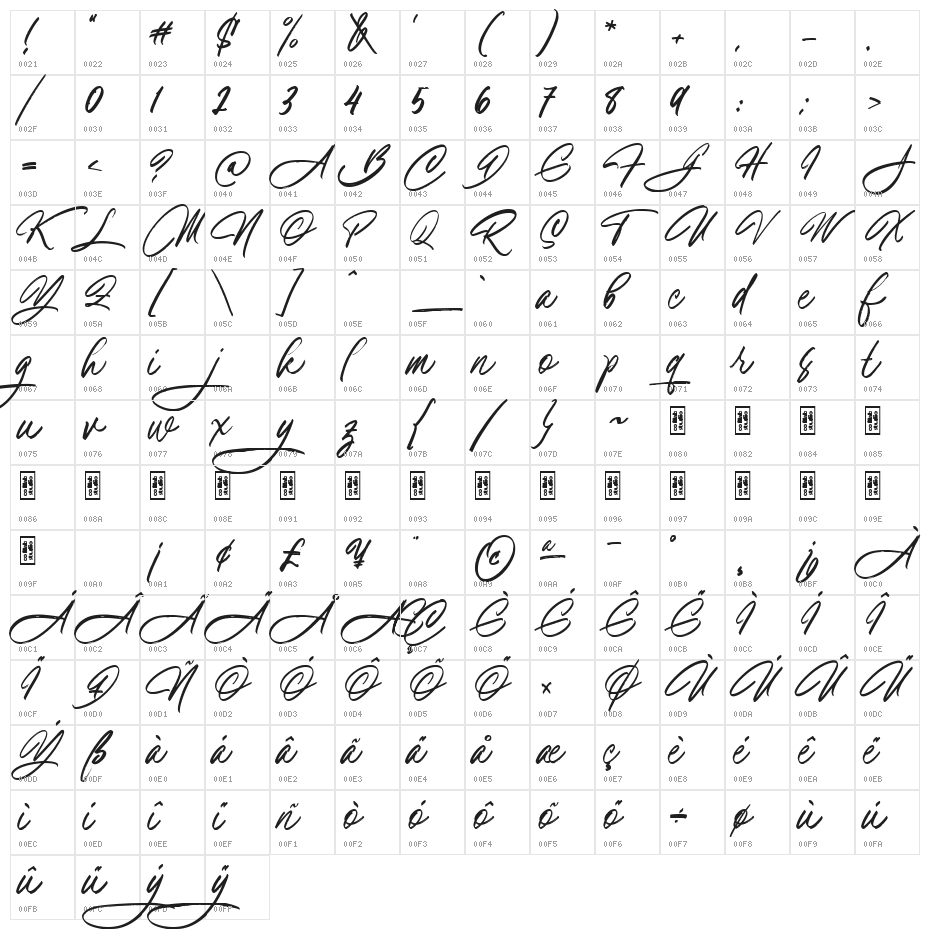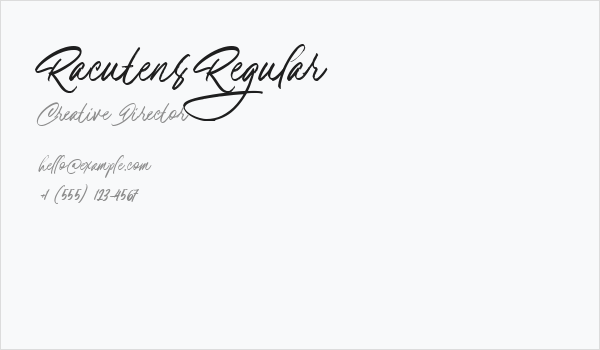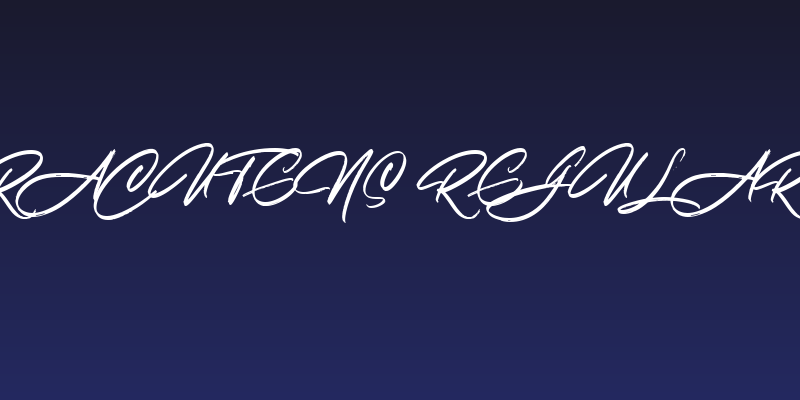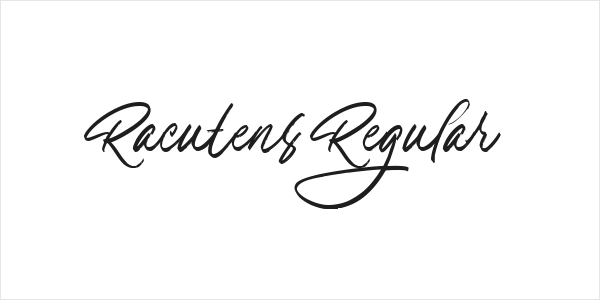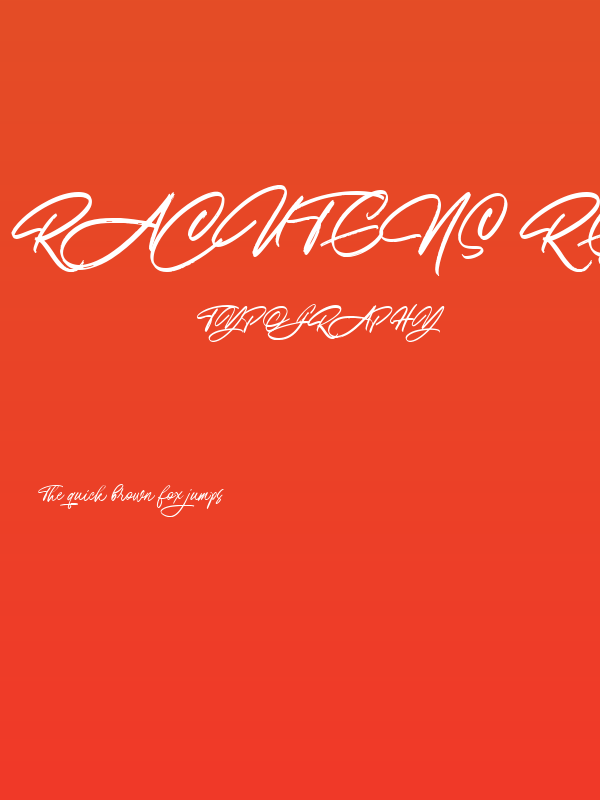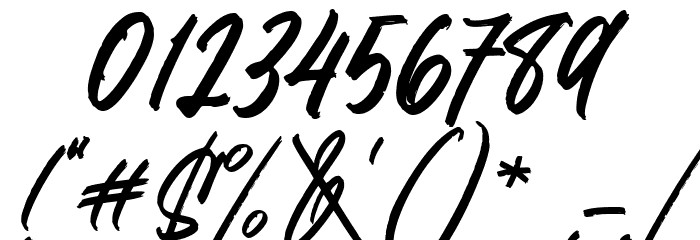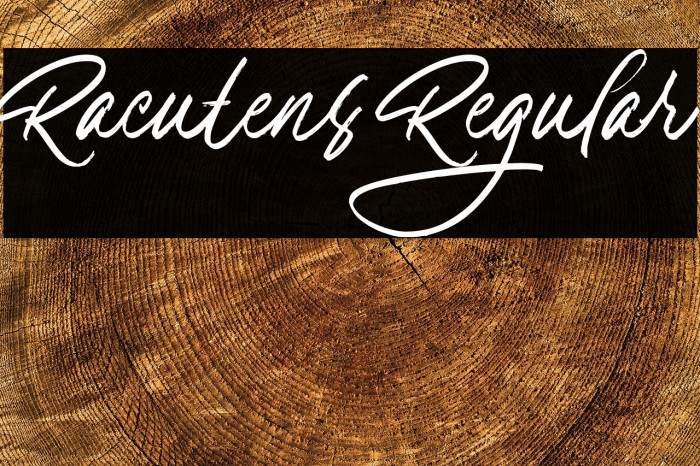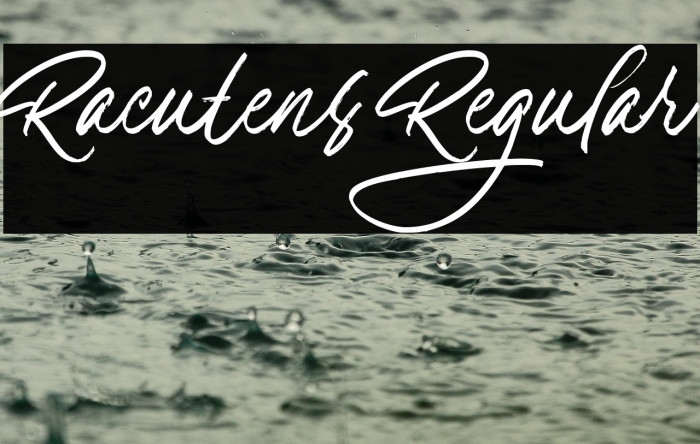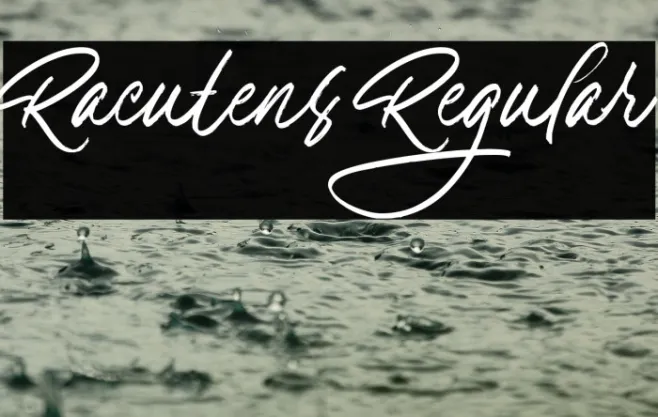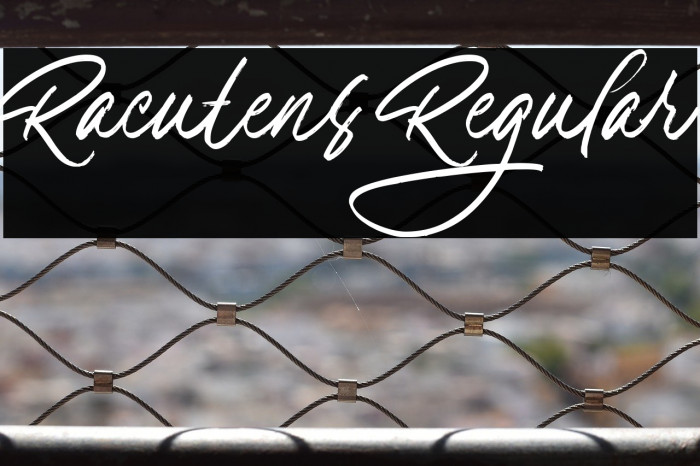
Racutens Regular Font
Racutens Regular Description
This font exudes a dynamic and energetic style, characterized by its fluid, cursive script that mimics natural handwriting. The letters are interconnected, creating a seamless flow that is both elegant and expressive. The uppercase letters are slightly larger, adding a touch of sophistication, while the lowercase letters maintain a consistent rhythm. The numerals are bold and clear, ensuring readability. Special characters are integrated smoothly, maintaining the overall aesthetic. This font is perfect for projects that require a personal touch, such as invitations, greeting cards, or branding materials.
| Proposed Projects | Ideal for invitations, greeting cards, personal branding, and artistic projects. |